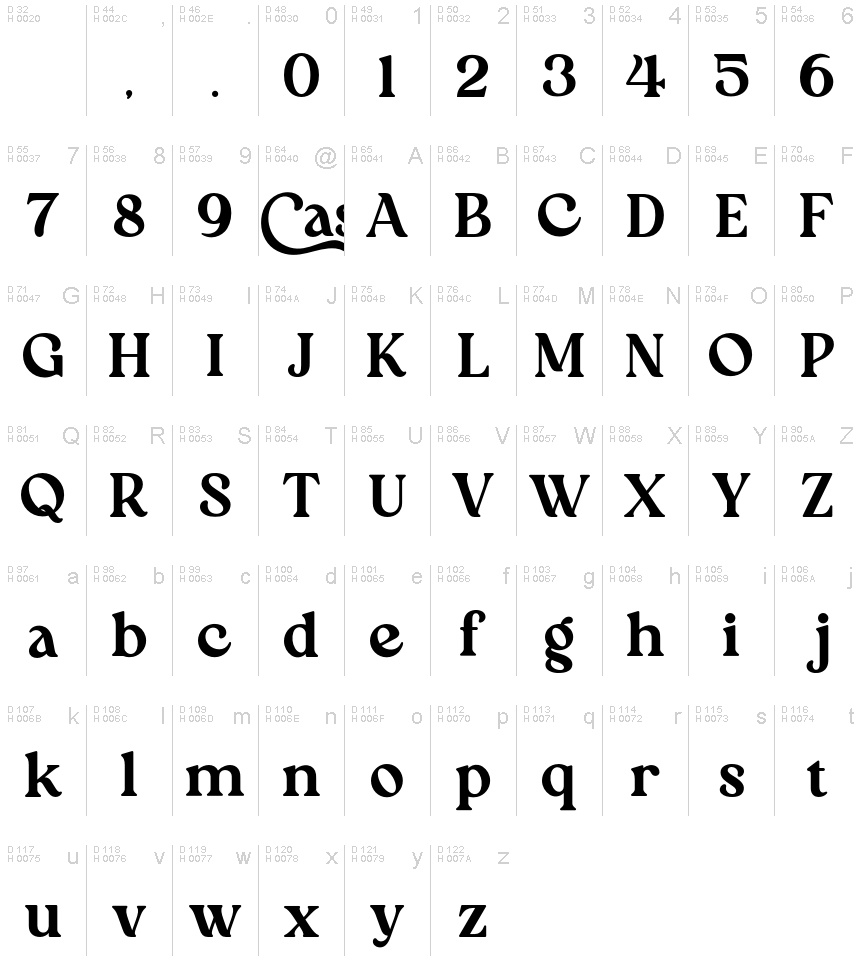
Blue_Cashews
Blue Cashews captures attention with its distinctive serif style, blending elegance and playfulness. The font's striking forms evoke a sense of sophistication, enhanced by dramatic curves that add character to each letter. With over 220 stunning alternates and ligatures, it offers designers a wealth of creative possibilities for personalization, ensuring standout presentations.
Ideal for packaging, apps, and headlines, Blue Cashews shines in magazines and ads alike. Its visually captivating essence makes it perfect for any design project where uniqueness is essential. Whether aiming for an inviting look or bold assertions, this font transforms ordinary text into extraordinary visual statements. Embrace Blue Cashews to elevate your designs with effortless charm and flair.
To get results like the preview just type B.2l.3ue.2 C.2ash.2ew.2s.3